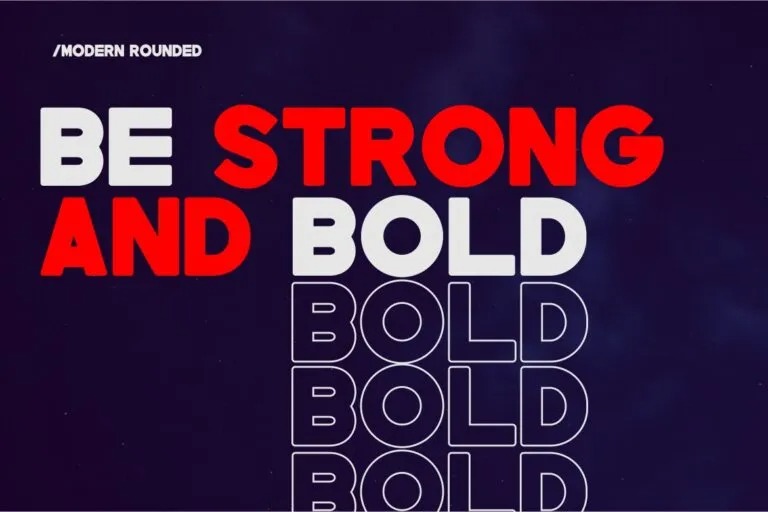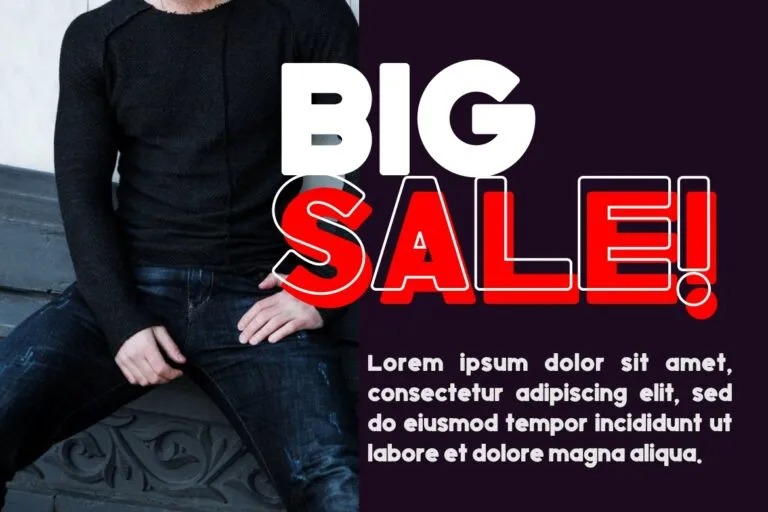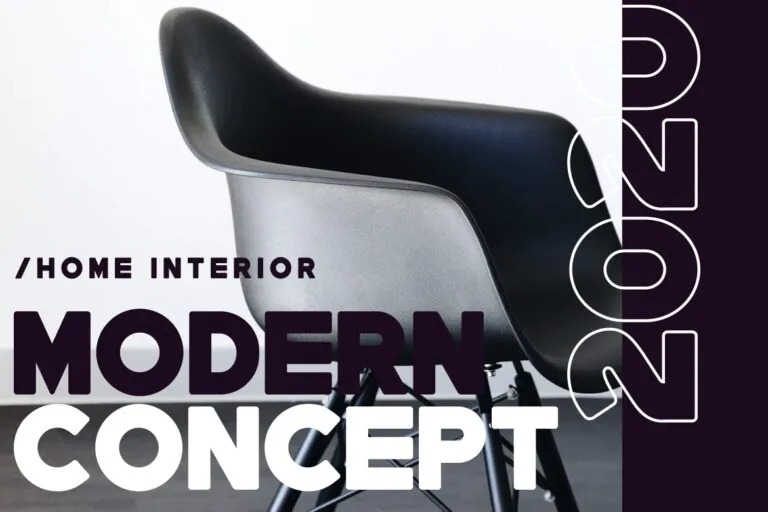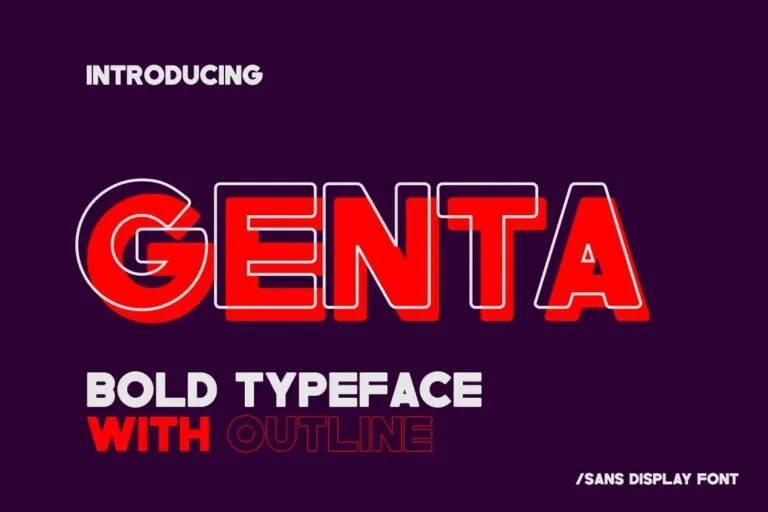
Genta Font
Genta Sans Serif Font is a handcrafted modern sans serif font crafted & designed by HansCo. It’s a sans serif font with hand-drawn character specially designed to give the vintage feel you are looking for. It works great for vintage branding, logo, t-shirts, label/badges design and more.